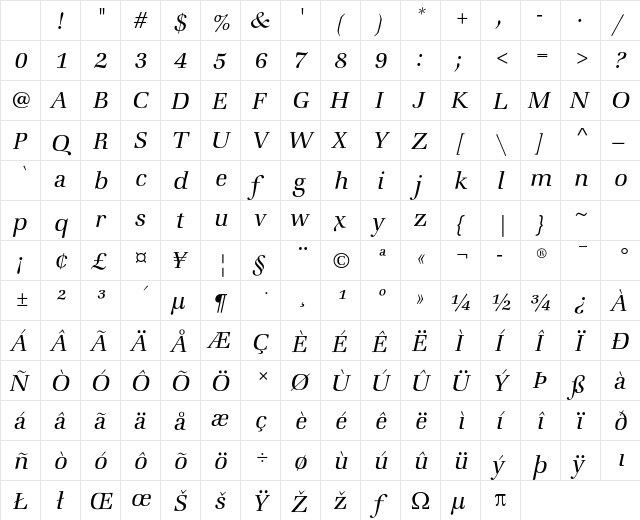
Complete Zapf Book ITC Std LightIta glyph index. Displaying only characters natively supported by Zapf Book ITC Std LightIta font.
Zapf Book ITC Std is a composed and adaptable typeface that performs quietly and consistently across a wide range of design contexts. Its slender proportions lend an understated elegance to any composition.